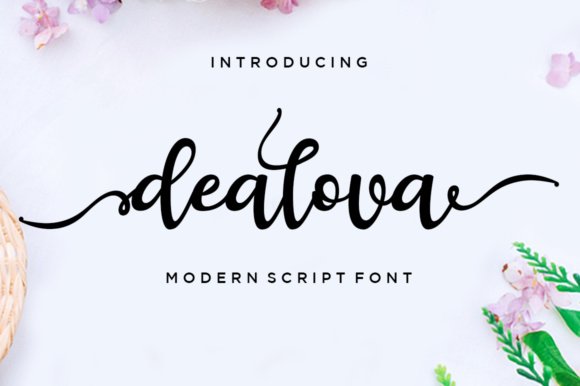
Discover the Timeless Charm of Dealova Script Font
There’s something magical about finding the perfect font for a project. It’s like stumbling upon a hidden gem that elevates your entire design. For many designers, this moment is what makes all the hard work worth it. You’re browsing through font libraries, scrolling through online marketplaces, and finally, you come across it – the perfect script font that brings your vision to life.
Meet Dealova Script Font, a beautiful, legible script font that’s perfect for a wide range of projects. Whether you’re creating a vintage-inspired logo, designing a wedding invitation, or crafting a brand identity, Dealova is a great way to add a touch of elegance and sophistication. Its clean style makes it a valuable addition to any designer’s toolkit, allowing you to create stunning designs that stand out from the crowd.
Dealova Script Font Key Features
- Font Family: Dealova Script, a beautiful script font designed for elegant and stylish text.
- Unique Characteristics: Features elegant connections between letters, subtle flourishes, and a flowing feel that makes it perfect for invitations, wedding designs, and other creative projects.
- Language Support: Supports a wide range of languages, including Latin, Cyrillic, and Greek, making it a versatile font for global designs.
Dealova Script Font Review
I’ve had the chance to work with the Dealova Script Font, and overall, I think it’s a solid choice for certain projects. ✨ Here are a few things that really stand out:
- It’s incredibly legible, even at small font sizes. The script style is delicate and elegant, making it perfect for invitations, greeting cards, or other formal documents.
- The font has a wide range of language support, which is a huge plus for designers working on projects with diverse audiences.
- The Dealova Script Font is also highly customizable, allowing you to adjust the font weight, color, and other properties to suit your design needs.
However, as with any font, there are some limitations. ⚠️ Here are a few things to keep in mind:
- The Dealova Script Font is a script font, which means it’s not ideal for projects that require a more formal or traditional look.
- The font can be a bit too ornate for certain designs, so be sure to balance it with simpler elements to avoid visual overload.
- There are some minor spacing issues in certain characters, which can affect the overall flow of your text.
Overall, I think the Dealova Script Font is a great choice for designers looking for a unique and elegant script font. While it’s not perfect, it’s definitely worth considering for the right projects. With some careful planning and execution, it can be a real showstopper.
Tips for Getting the Most Out of Dealova Script Font
1. Use Dealova Script Font for titles, headings, and other emphasis text to add a touch of elegance and sophistication.
2. Combine Dealova Script Font with other fonts to create a unique and eye-catching design.
3. Experiment with different font sizes, colors, and styles to achieve the desired effect.
Dealova Script Font is perfect for:
Wedding invitations, stationery, and other formal events.
Alternatives to Dealova Script Font
Great Vibes is a beautiful, elegant script font perfect for creating a sense of sophistication and refinement. It’s ideal for use in luxury branding, high-end packaging, and wedding invitations. Great Vibes is more refined and delicate compared to Dealova Script Font, which makes it a great choice for projects where a more subtle approach is needed.
What is the character set of the Dealova Script Font?
The Dealova Script Font includes a comprehensive character set that covers Latin, Cyrillic, and Greek alphabets. It also includes a range of punctuation marks, numerals, and special characters. The font is designed to be versatile and suitable for a wide range of applications, including typography, graphic design, and digital publishing.